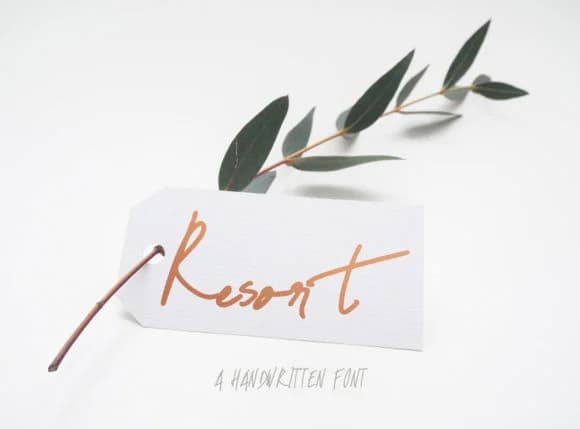
There's a relaxed warmth to handwritten scripts that instantly makes a design feel more personal and genuine. Resort Script, designed by lunarctic, brings that organic quality while keeping letterforms clean and readable at different scales, from small digital graphics to larger printed pieces.
This typeface truly comes alive in intimate design contexts where you want the audience to feel a human touch. Wedding invitation suites are a natural fit, as are custom greeting cards for boutique stationery sellers, wine and craft beverage labels that need character without pretension, and event programs where the handwritten quality enhances the experience. DIY craft signage and hand-lettered social media posts work beautifully too, places where the script itself becomes part of your visual identity. What makes Resort work is that the letterforms carry enough personality to anchor a layout independently, but they're restrained enough not to overshadow your core message.
When you're setting body text alongside this script, pair it with a clean geometric sans-serif or understated serif to maintain readability and let both fonts strengthen each other through contrast. Find Resort Script on Creative Fabrica and start designing with letterforms that feel genuinely handmade rather than mechanically rendered.
Resort Script Font is a script font that shines as a display or heading face. Pair it with a clean sans-serif or serif font for body text β the contrast creates a clear hierarchy while the two styles stay balanced and easy to read.
Resort Script Font
by lunarctic